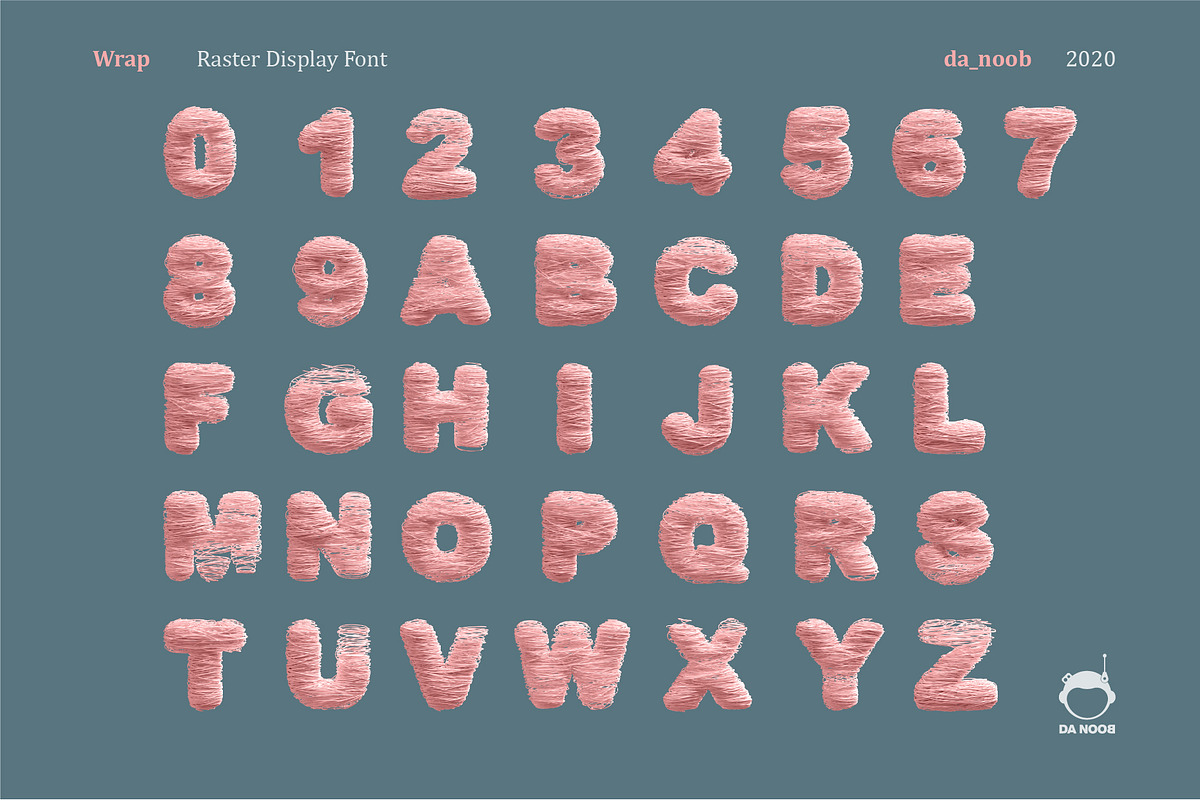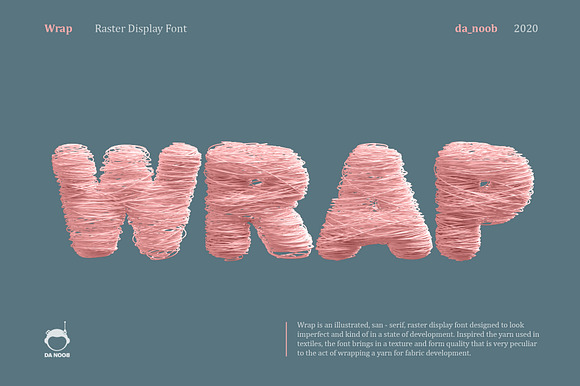
Wrap - Raster display font
Wrap is an illustrated, san - serif, raster display font designed to look imperfect and kind of in a state of development. Inspired the yarn used in textiles, the font brings in a texture and form quality that is very peculiar to the act of wrapping a yarn for fabric development.
Thought the font has distinct use cases depending on the creator, it can be best used for headings, short words and illustrative typographic projects.
PLEASE NOTE that this is a display font.
1. The font does not contain special characters and small alphabets.
2. Each alphabet can be scaled to 1500px 1500px without loosing the quality.
4. The font comes in grey scale so that you can color it according to your need.
6. This is not a vector font.